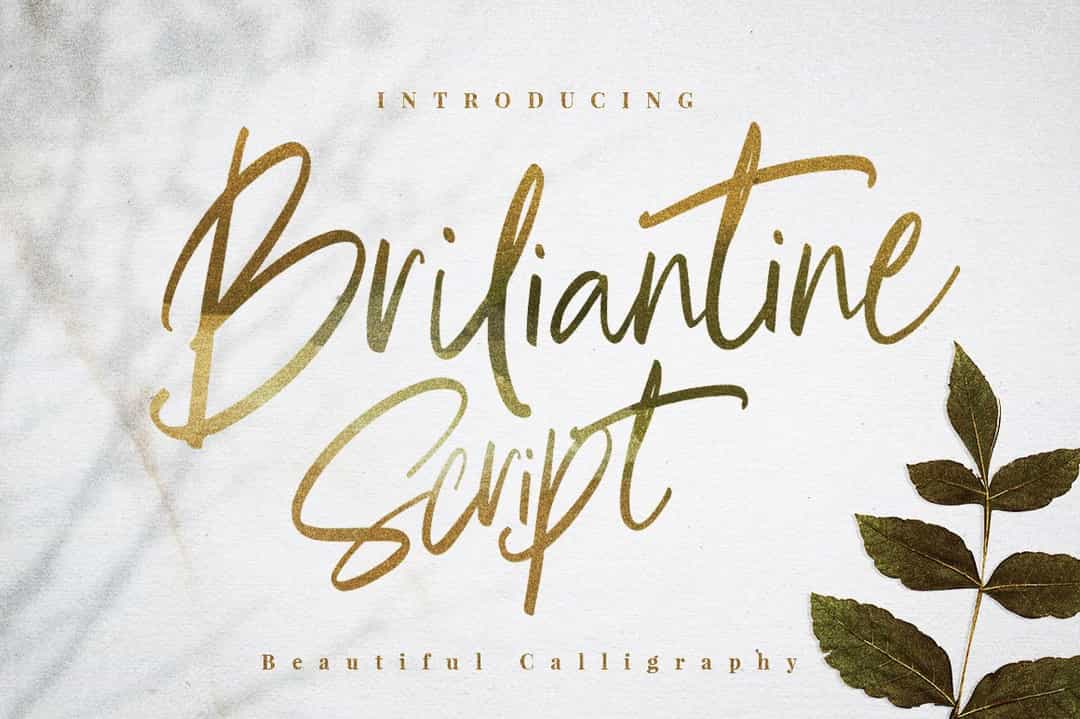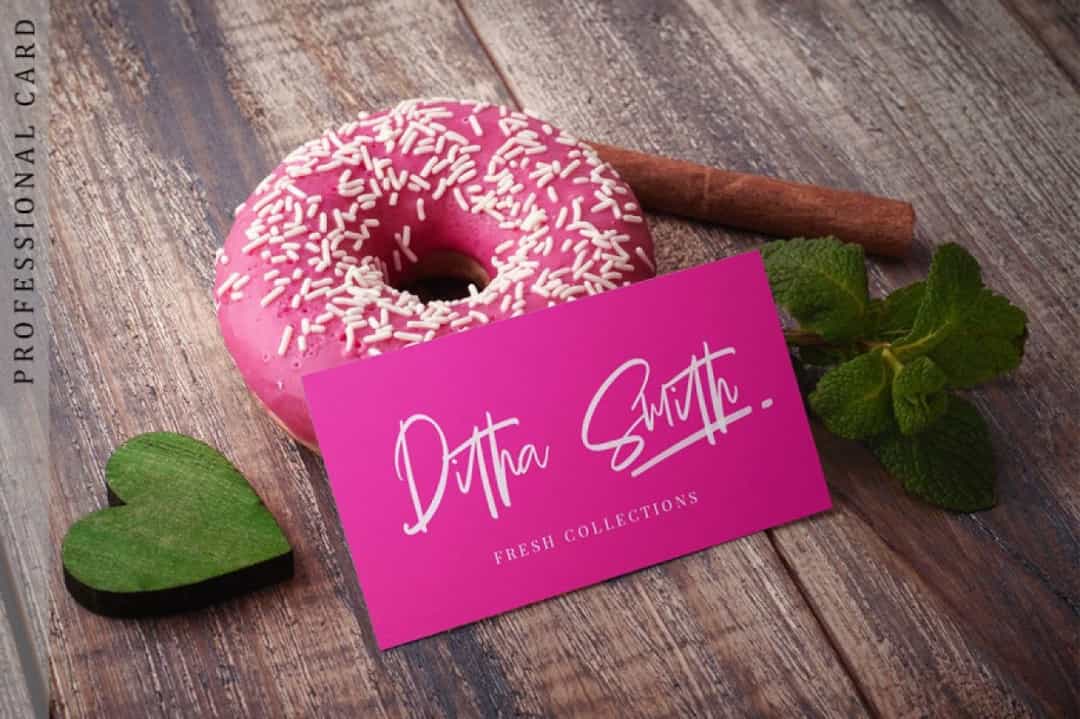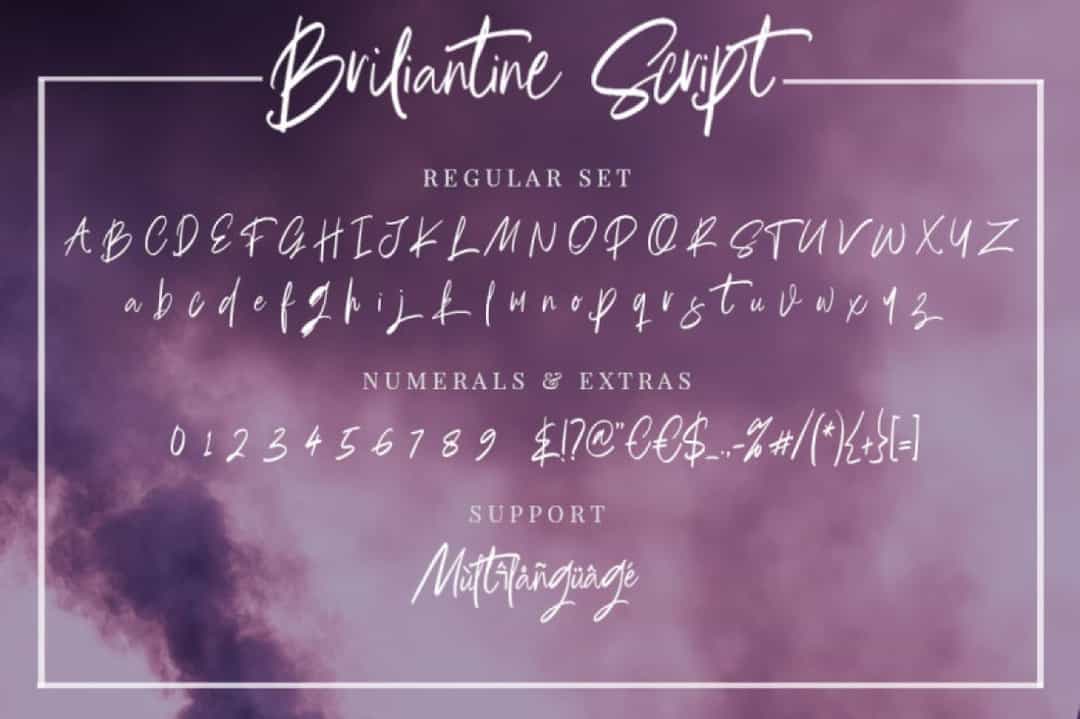
Introducing Briliantine Font. Briliantine is the Stunning Calligraphy Typefaces. A fashion and super-chilled new handwriting font script with some sexy stylish extras. Briliantine Script is a typeface that has the ability to create beautiful typographic harmony for different design projects such as logos & branding, wedding designs, social media posts and advertisements.